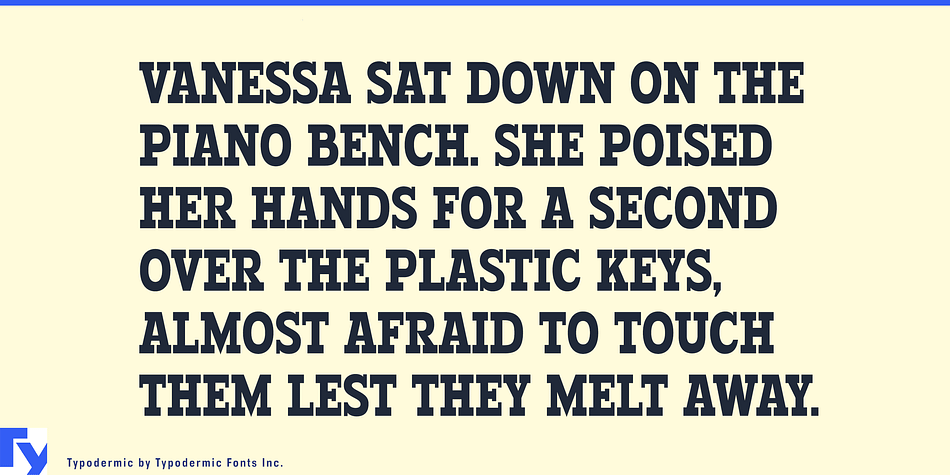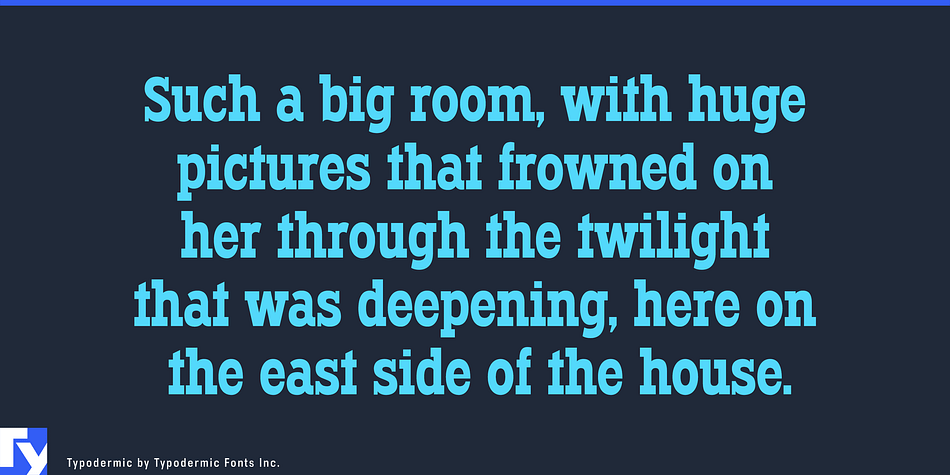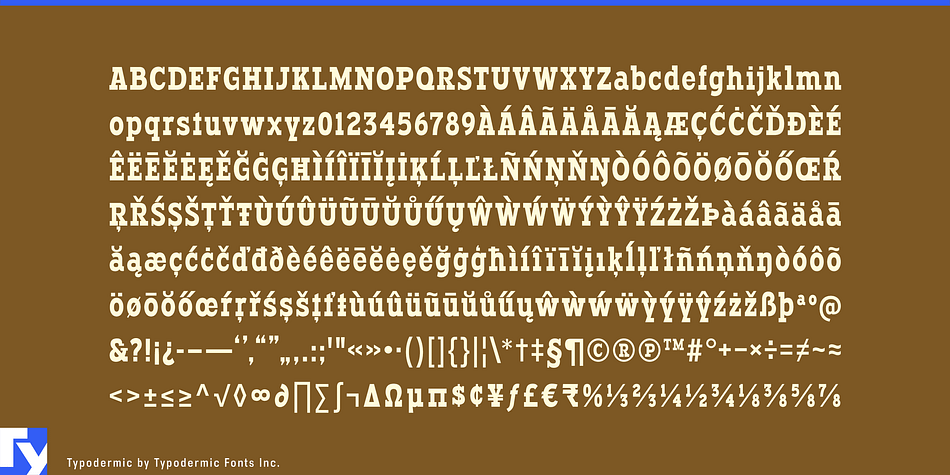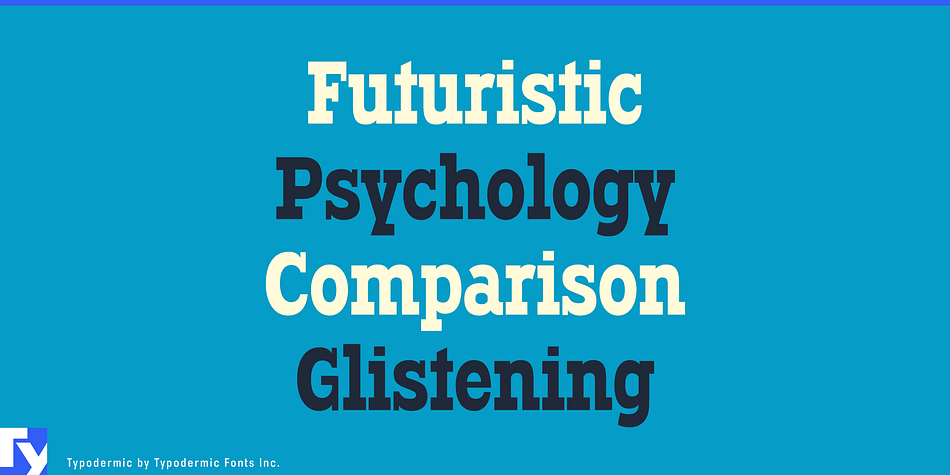
Typodermic
Typodermic is a slab serif and display slab font published by Typodermic Fonts Inc.
Introducing Typodermic, a typeface that exudes a commanding presence. Its bold, thick slab serifs impart a sense of grandeur and gravitas, making it the ideal choice for those who seek to convey a message with a touch of erudition and sophistication.
The strikingly robust letterforms of Typodermic are imbued with an air of authority and elegance that will undoubtedly elevate your message to new heights. Its meticulously crafted design incorporates features that are both distinctive and unique, ensuring that your message stands out in a sea of mediocrity.
Experience the power and elegance of Typodermic today, and see how its unusual letterforms and heavyset slab serifs can transform your message into a work of art. Whether you’re crafting a brand identity, designing a logo, or simply looking to make a statement, Typodermic is the perfect choice for those who demand nothing but the best.